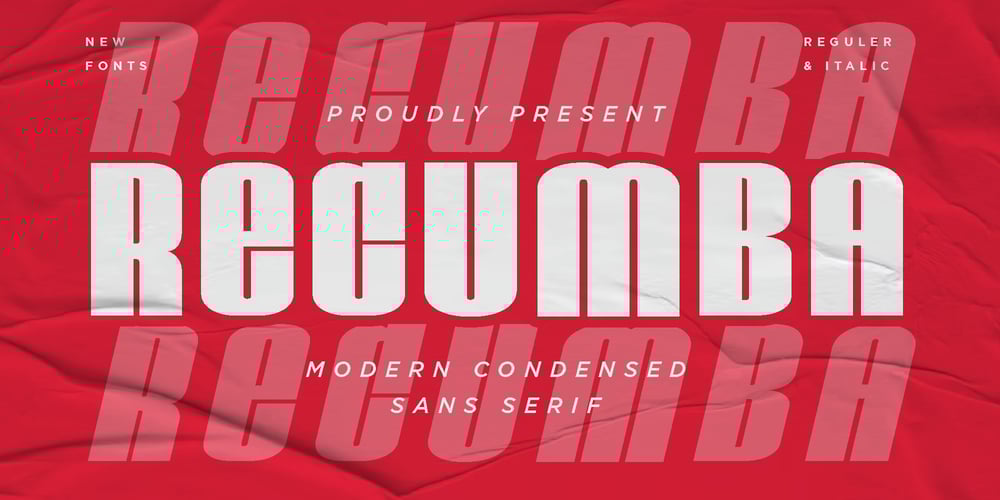
Recumba Font Family was designed by Abul Almaududi and published by Pixesia Studio. Recumba contains 2 styles and family package options. Introducing Recumba – Modern Display FontRecumba is modern display font with bold characters. Recumba is perfectly suited for branding projects, headlines, poster, movie titles, games, logos, social media posts, advertisements, product packaging, labels, photography, watermarks, stationery, and any creative project seeking a touch of modern bold elegance.FEATURES- Stylistic Alternates- Ligatures- PUA Encoded- All Caps- Numbering and Punctuations- Multilingual Support- Works on PC or Mac- Simple Installation- Support Adobe Illustrator, Adobe Photoshop, Adobe InDesign, also works on Microsoft WordHope you Like it.Thanks.